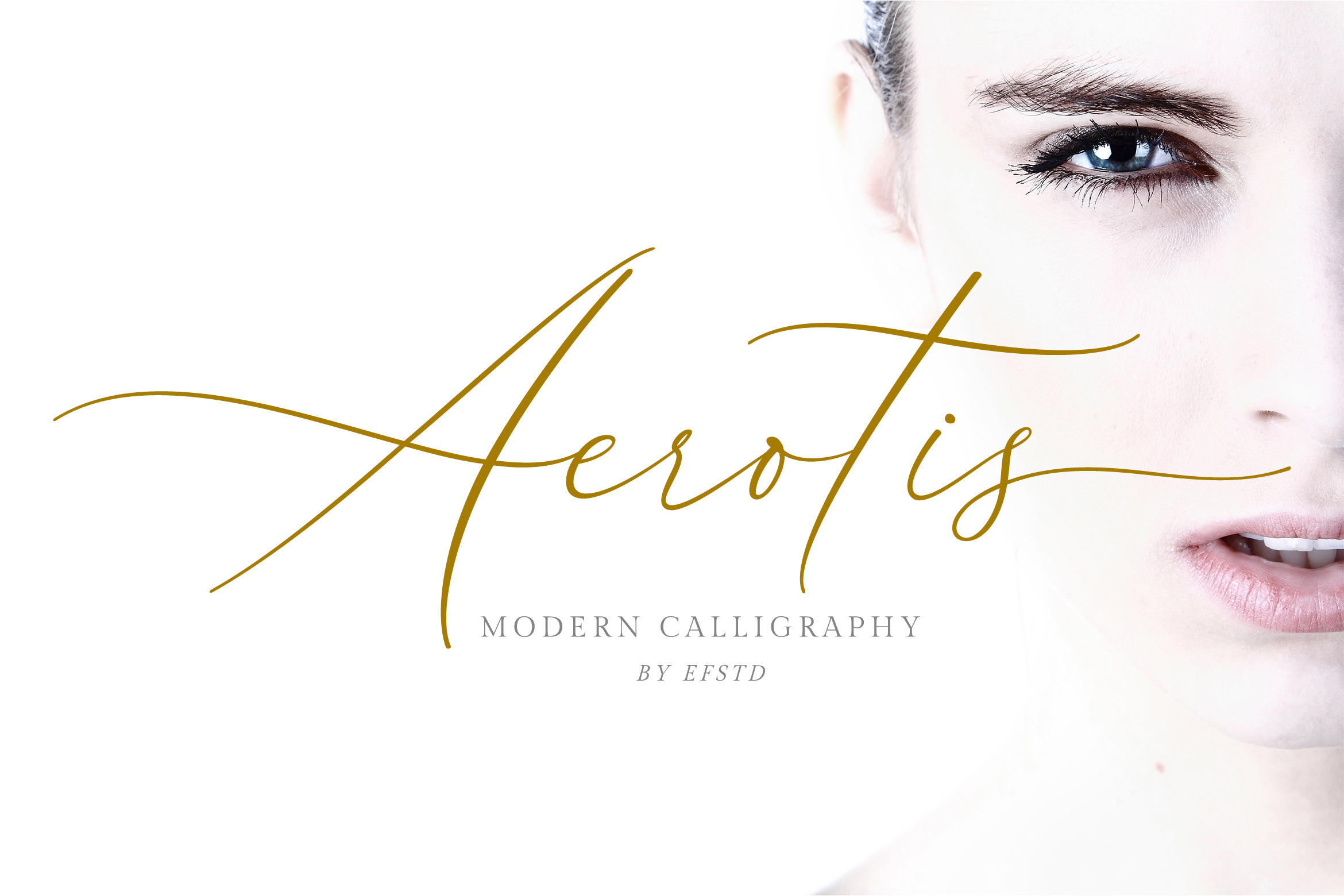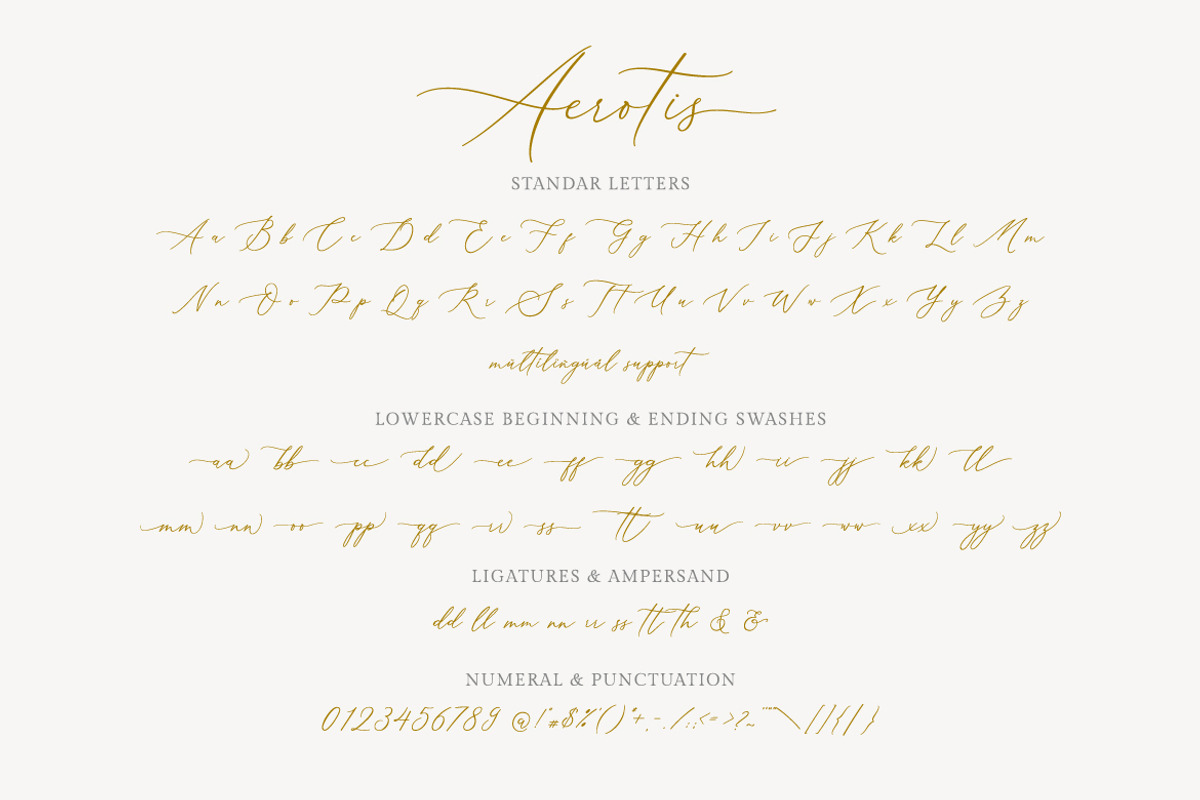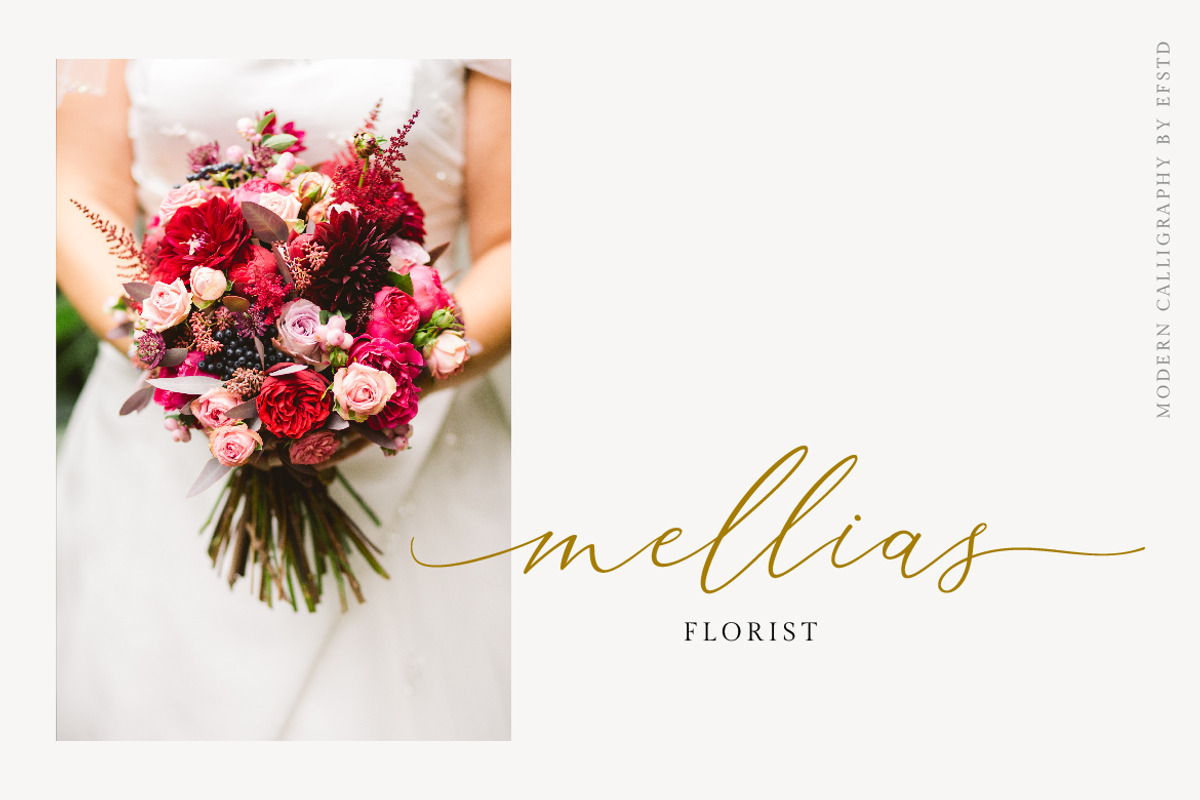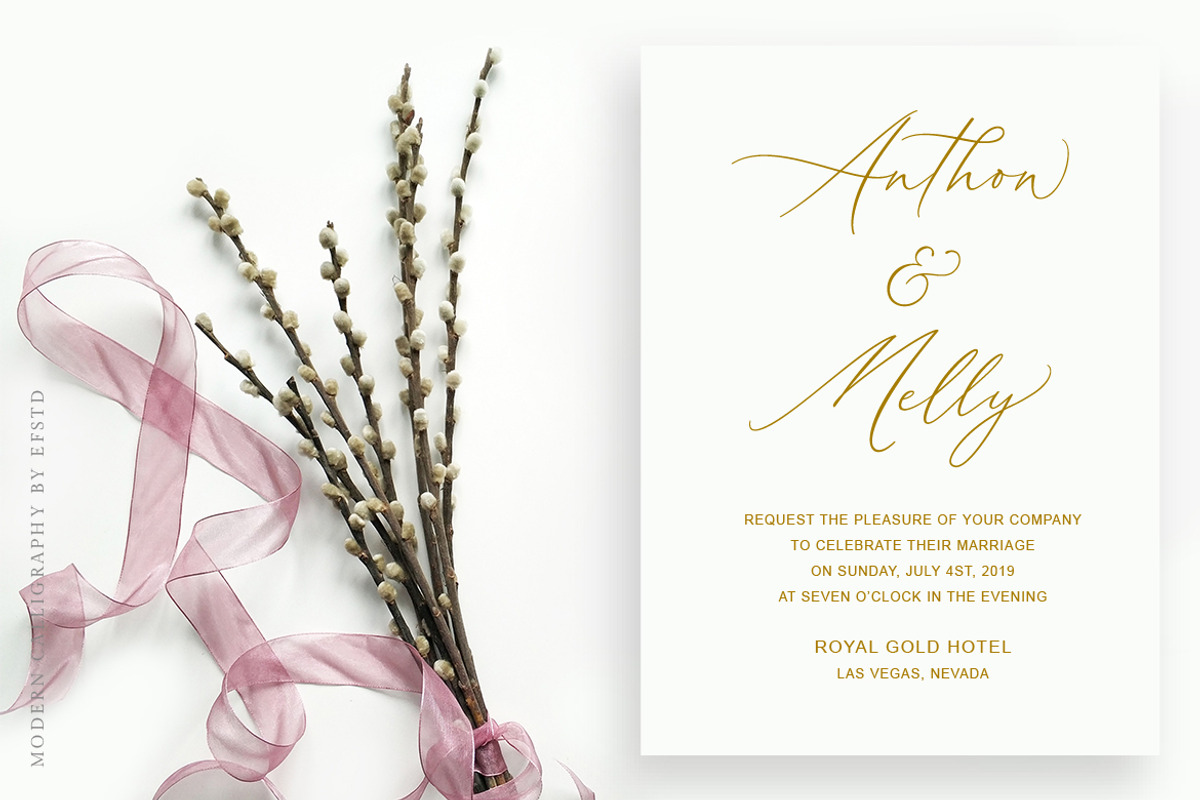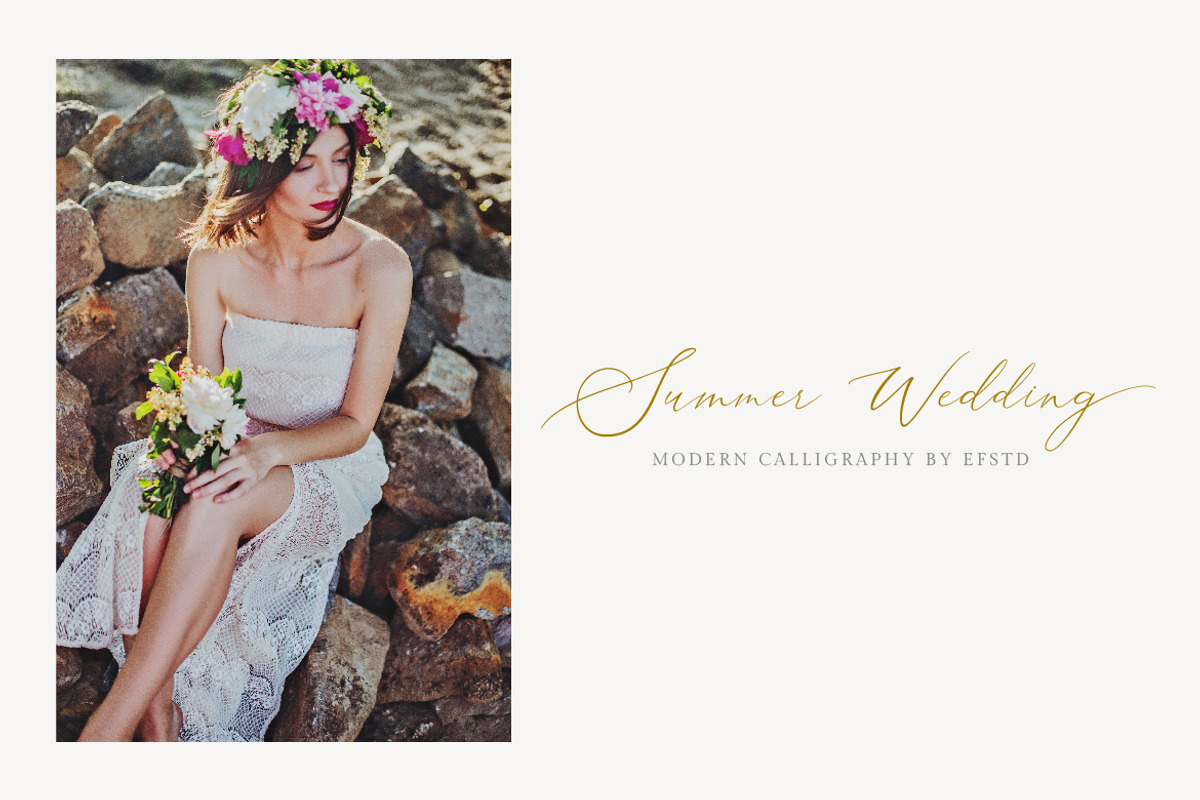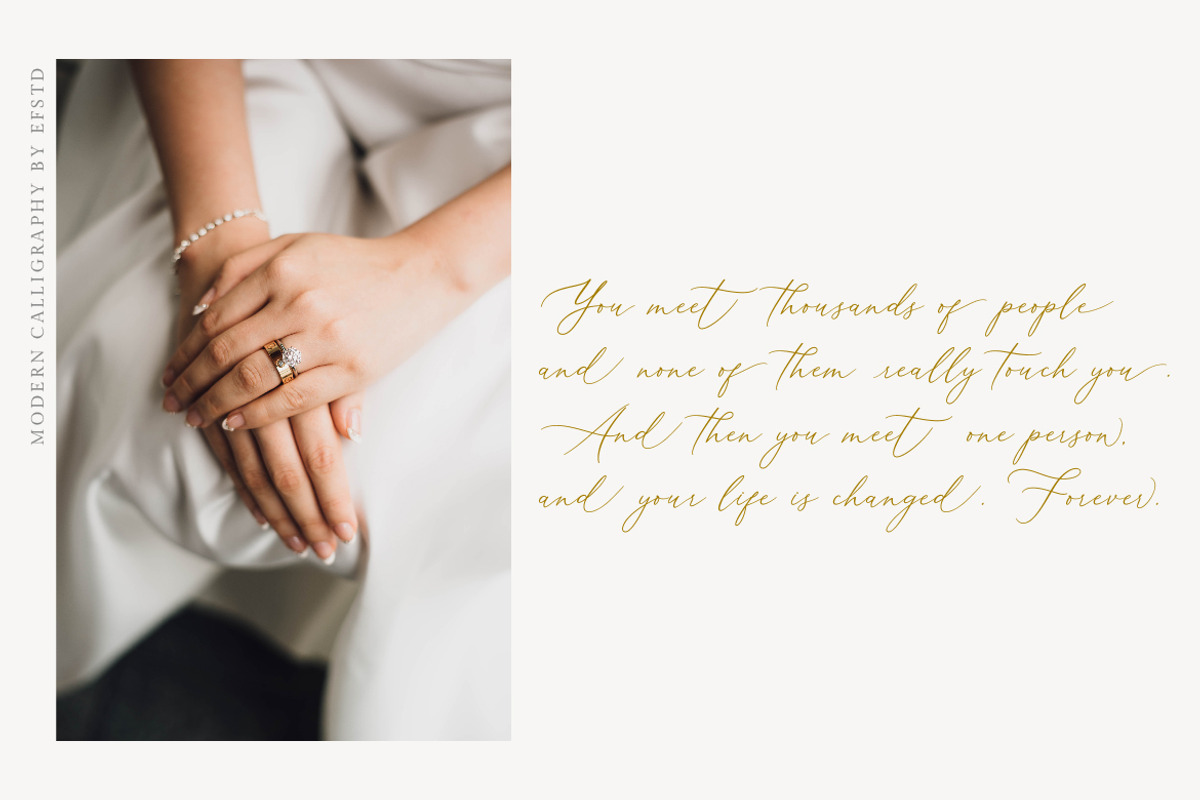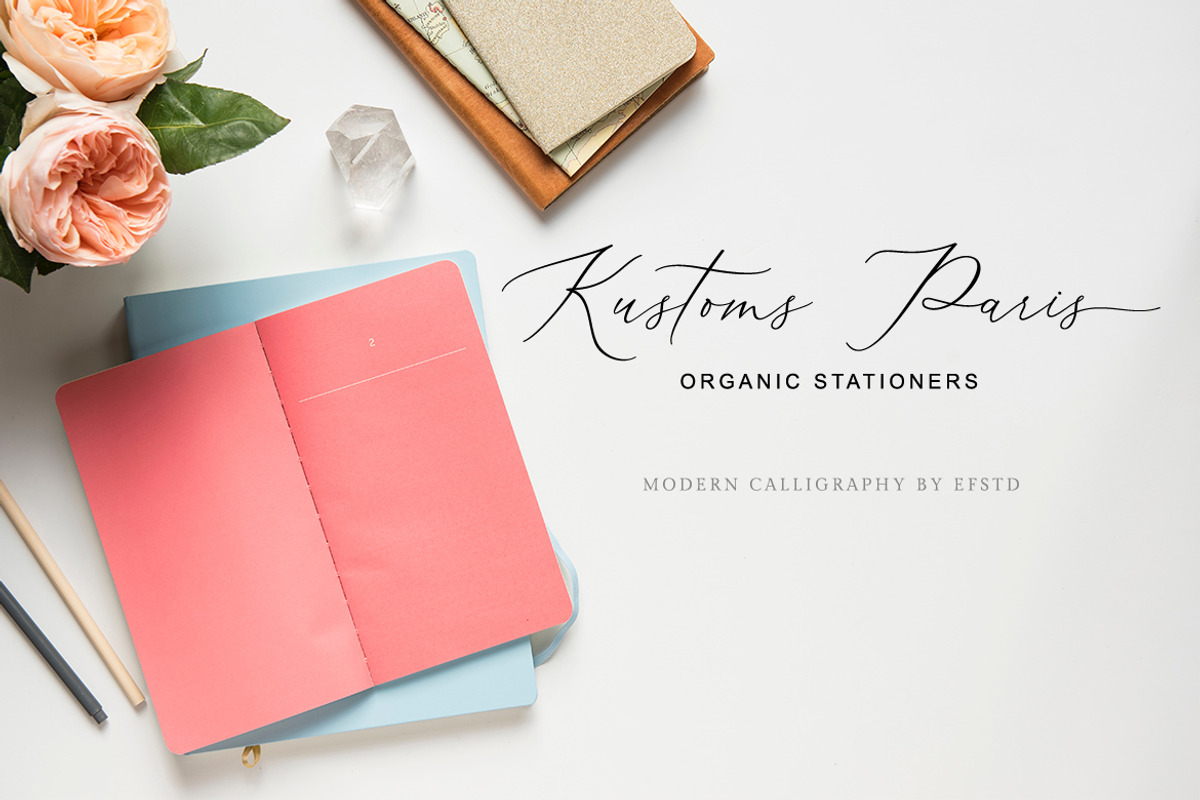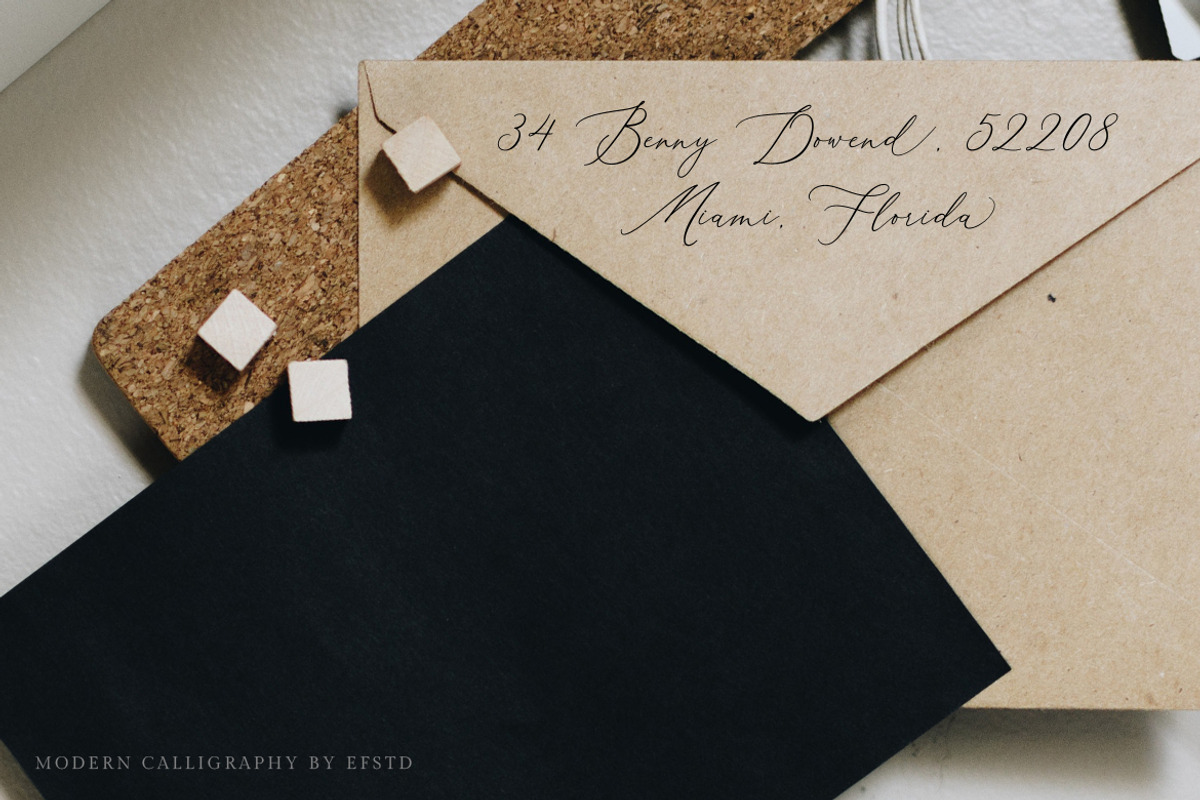
Aerotis, a Modern Calligraphy Font
Introducing Aerotis, a classy modern calligraphy font, Aerotis is perfect for invitations, branding, websites, red wine labels, and editorial designs. Includes all upper and lower case letters, multilingual support, punctuation, binding and initial and final swash. everything can be easily accessed using software that supports OpenType. Like Adobe Indesign, Adobe Illustrator CS, Adobe Photoshop CC, and Corel Draw.
The font is great. But it does not have symbols which is something I use often. I find myself not using this font because I don't have access to a proper period within the font.